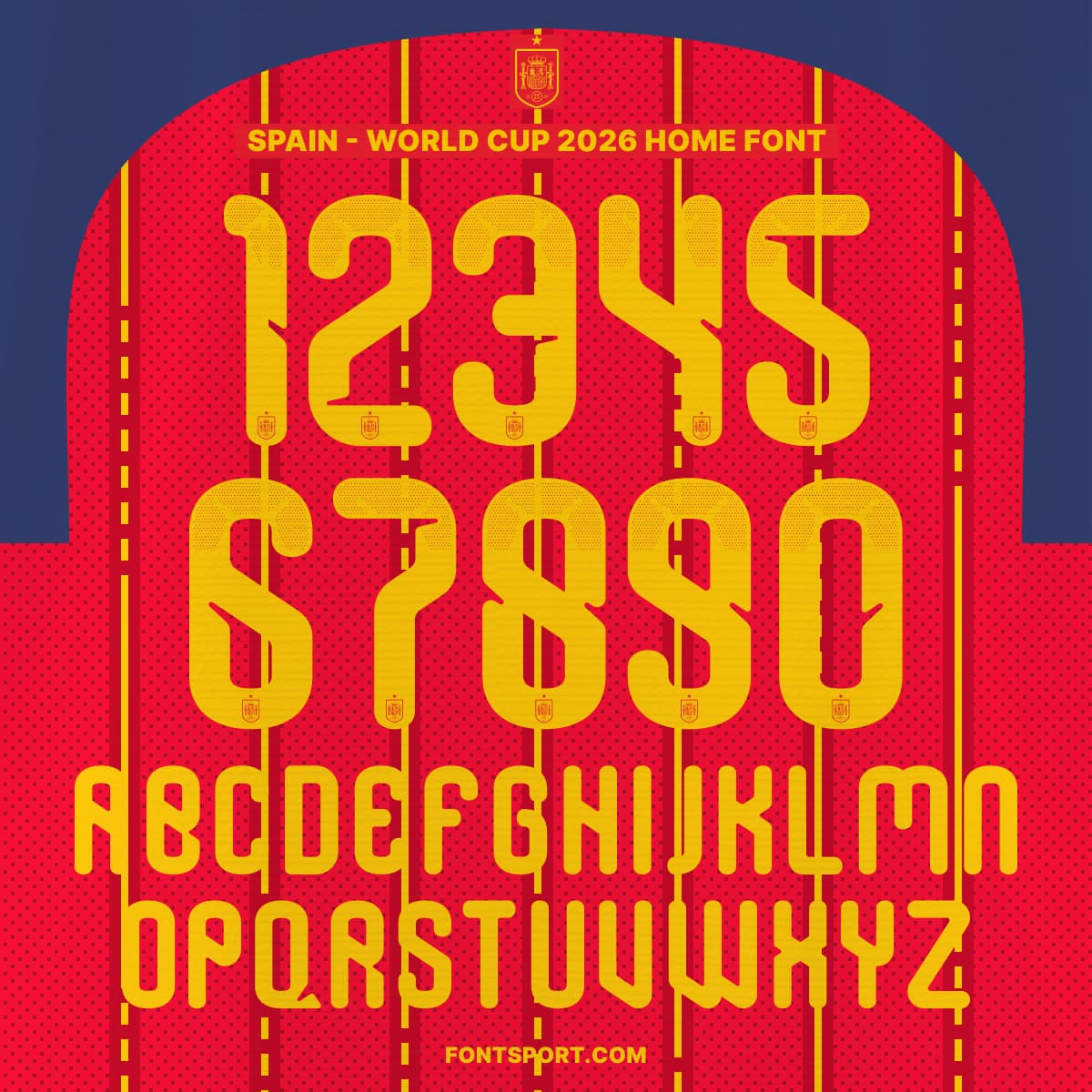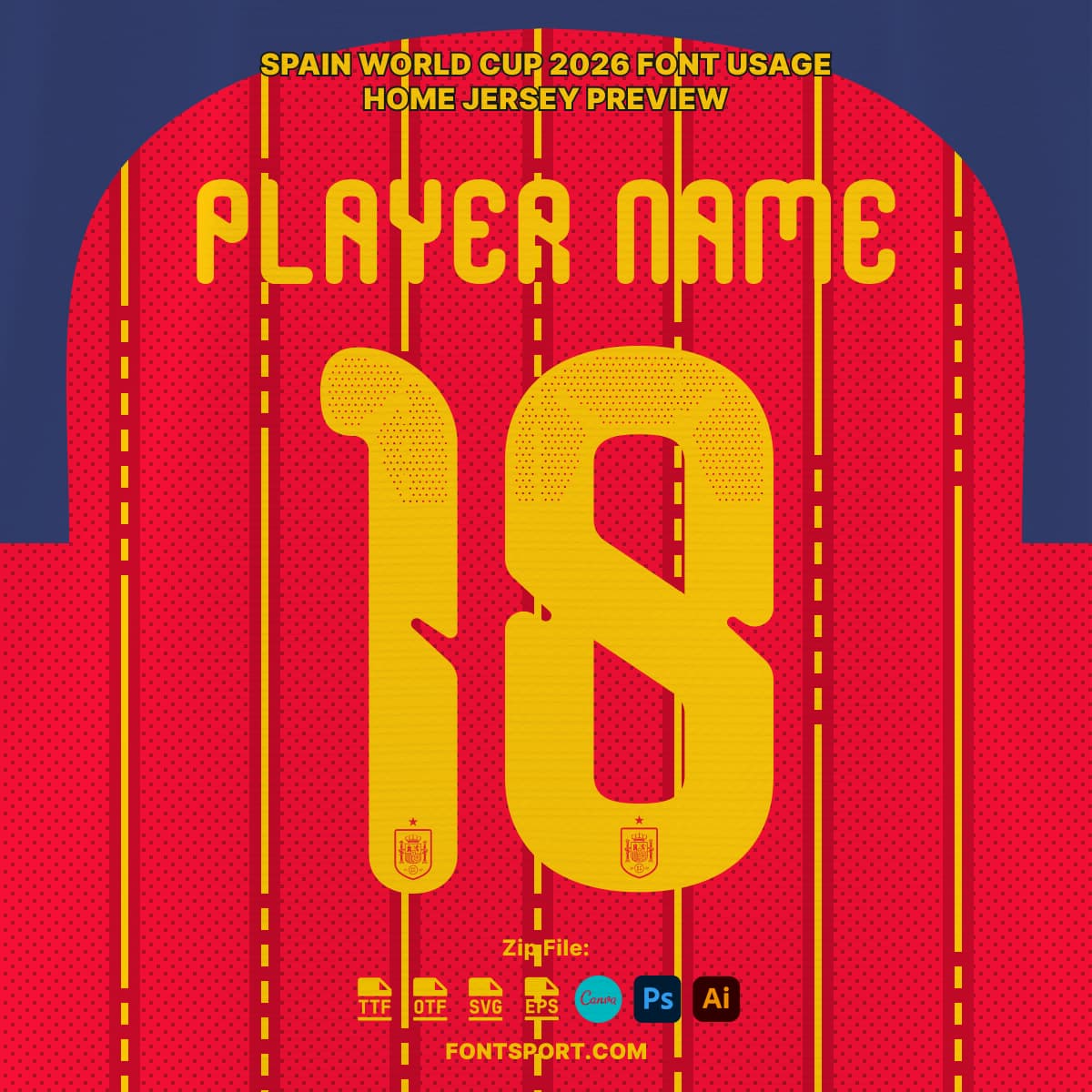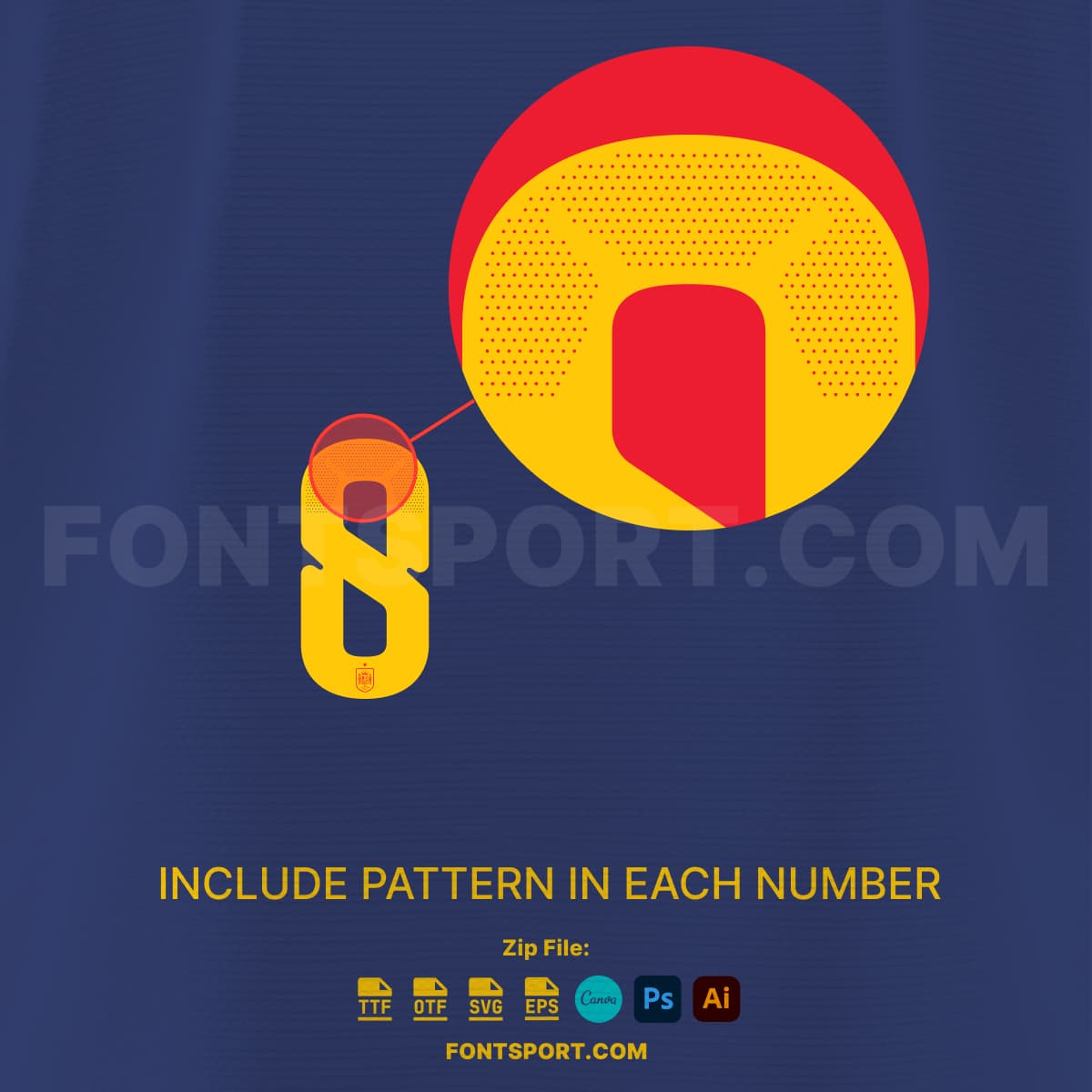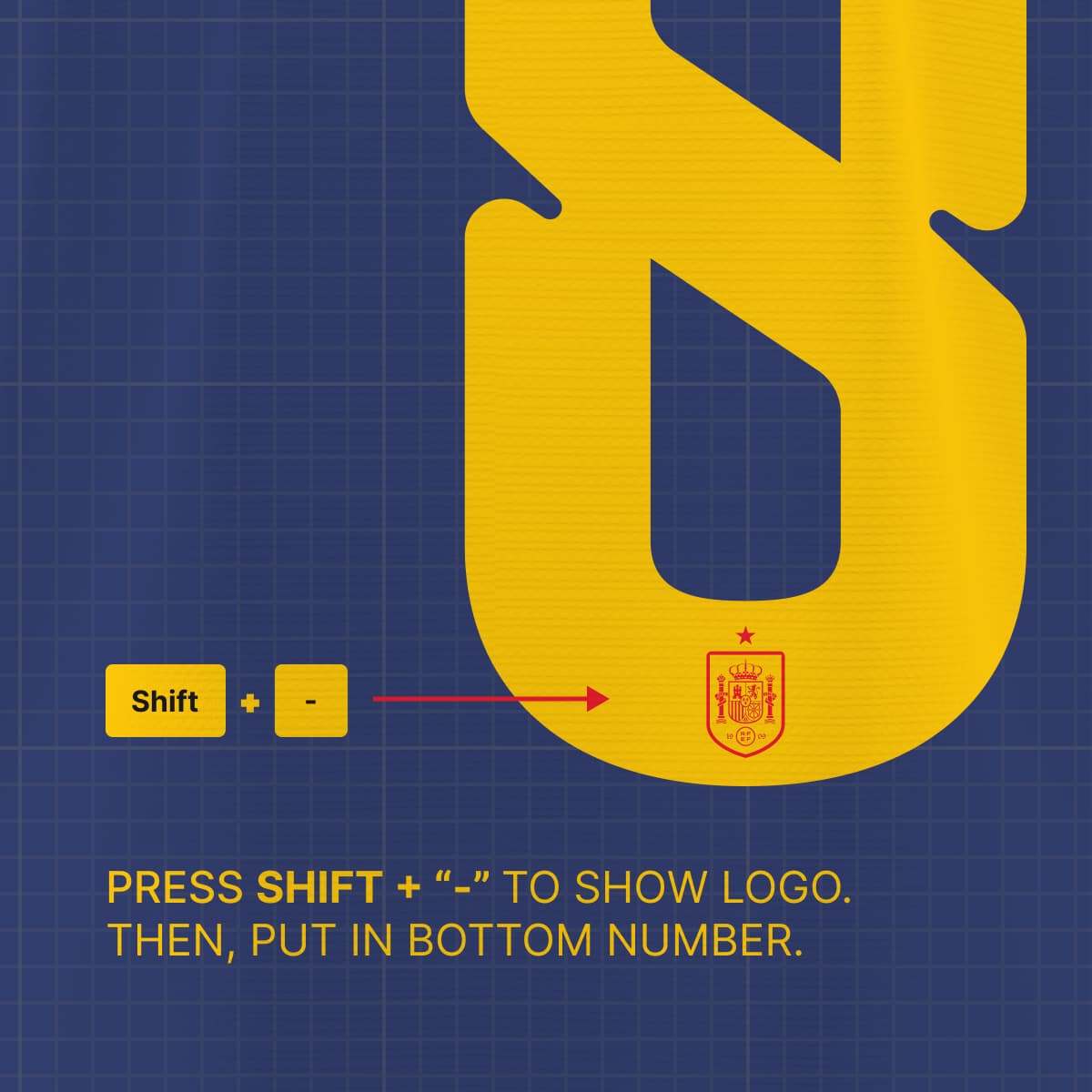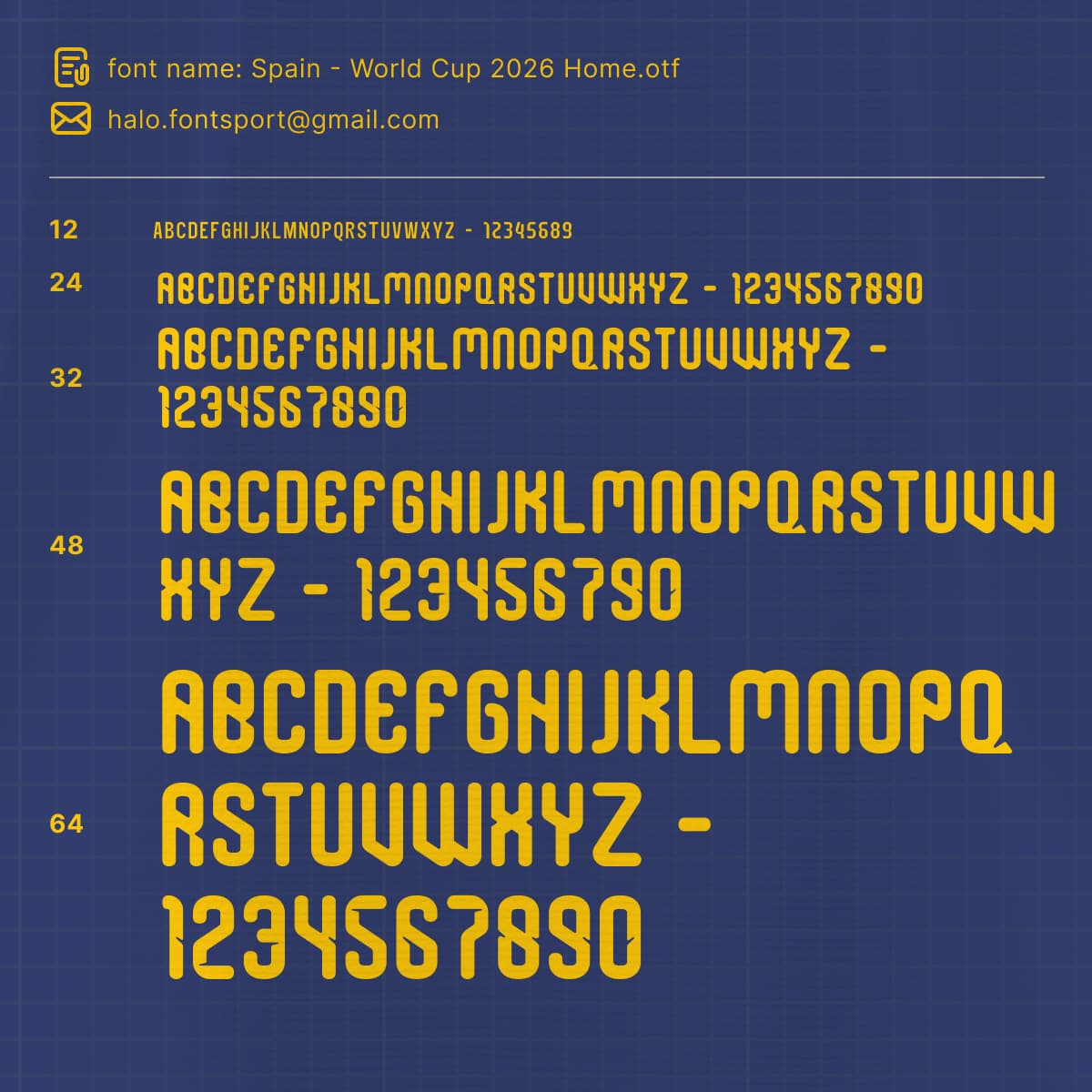
Charge Your Designs with Spain’s Spirit
Channel the pride and style of Spain’s national team into your designs with the Spain World Cup Home 2026 Font Kit. This typeface captures the distinctive aesthetic of Spain’s home jersey for the FIFA World Cup 2026, giving designers, fans, and creators the tools to build standout pieces—from jerseys and fan merchandise to post
✅ Full uppercase A–Z letters and 0–9 numbers for names and match-style numbering
✅ Built-in logo glyphs that display Spain’s crest simply by typing
This font for jersey gives you the flexibility to craft high-impact visuals while keeping design workflows simple and professional.
ers and digital banners.
Why Use This Sport Font
Whether you’re crafting a custom jersey mock-up, producing a high energy match-day poster, creating merchandise or designing social content—this font kit delivers crisp character forms and consistent style. Moreover, vector assets ensure your work scales cleanly across formats. In addition, logo glyphs embedded in the font streamline design, so you don’t need separate image files for the crest.
New Home Kit Leaked: Reports show Spain’s 2026 World Cup home kit featuring a deep red body with navy sleeves and vertical thin yellow pin-stripes—an elegant nod to the national flag. Release is expected in November 2025. – Source
- New Typeface Revealed: Sources confirm Spain will deploy a custom, exclusive typeface for World Cup 2026—distinct from Adidas’ standard font template. This marks the second straight tournament with Spain using its own bespoke lettering style. – Source
These developments highlight Spain’s renewed visual identity and on-pitch performance ahead of the 2026 World Cup—making this font kit particularly timely for fan-driven and creative use.
Use the Spain World Cup Home 2026 Font Kit to bring national-team flair and World Cup anticipation into your work—whether you’re designing fan gear, social media posts, or club-style parodies.